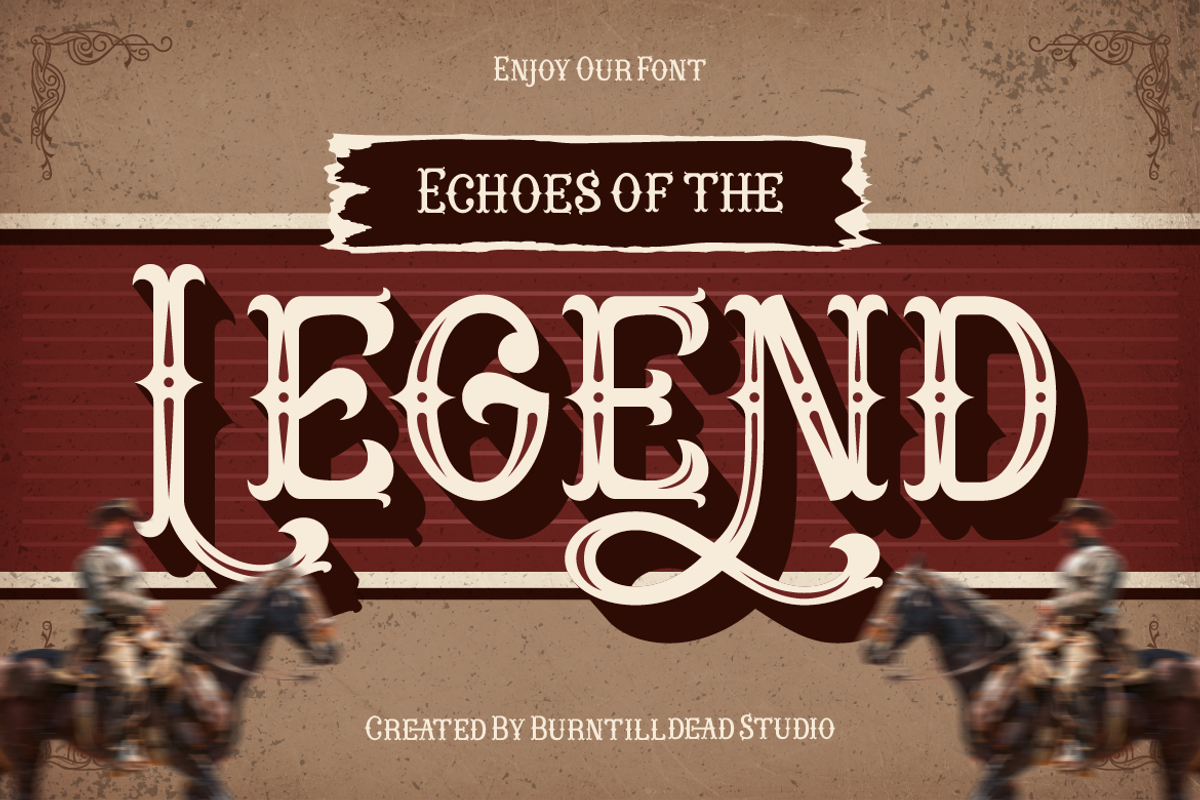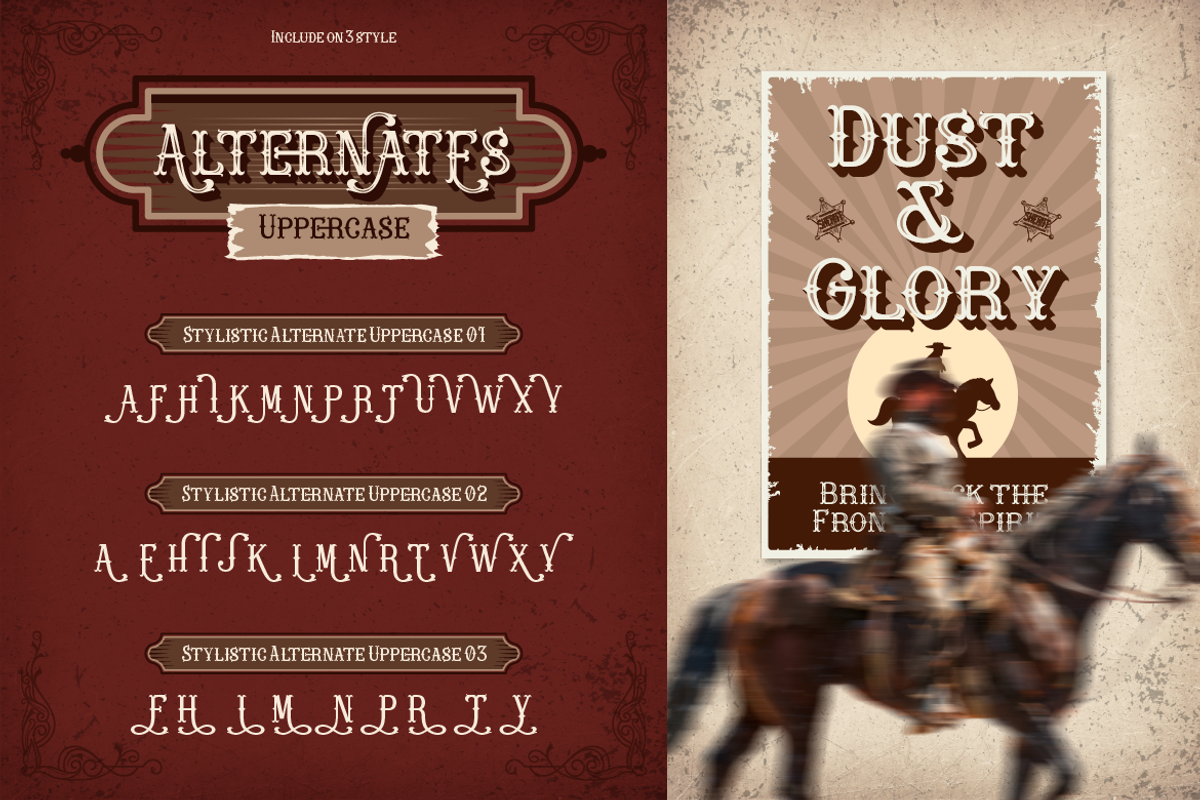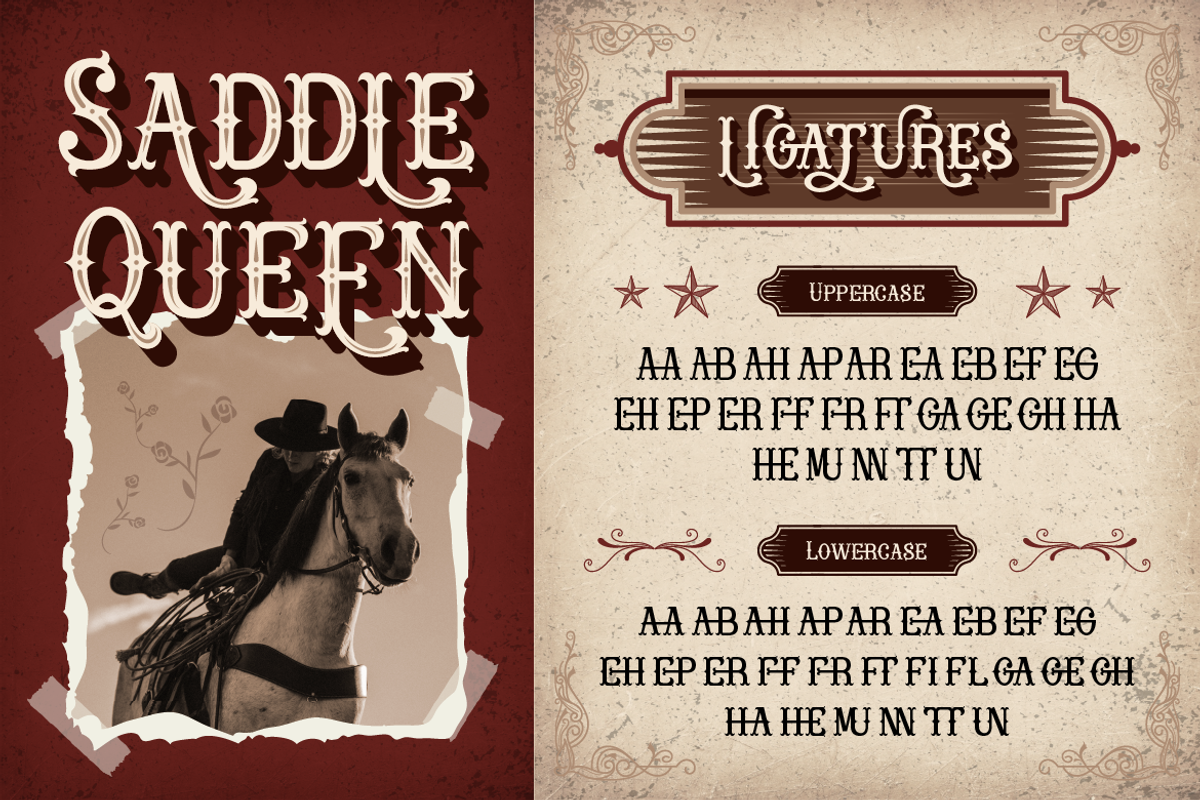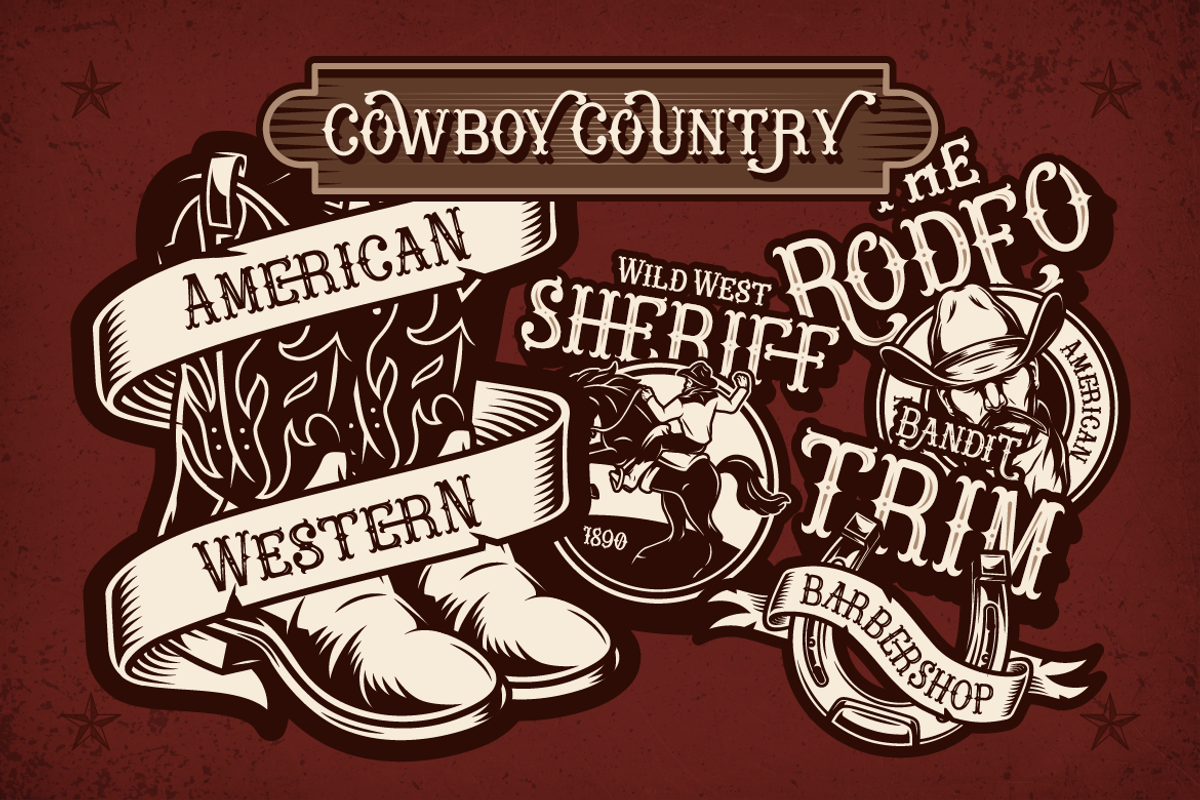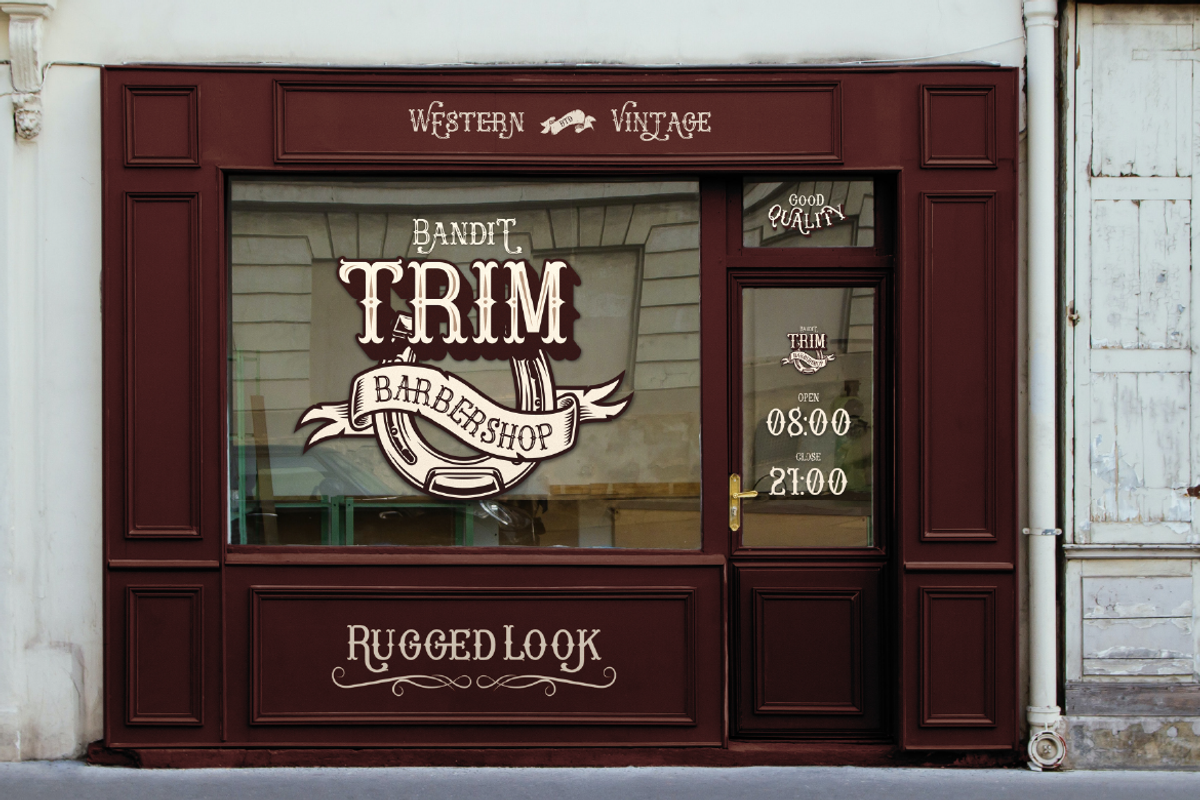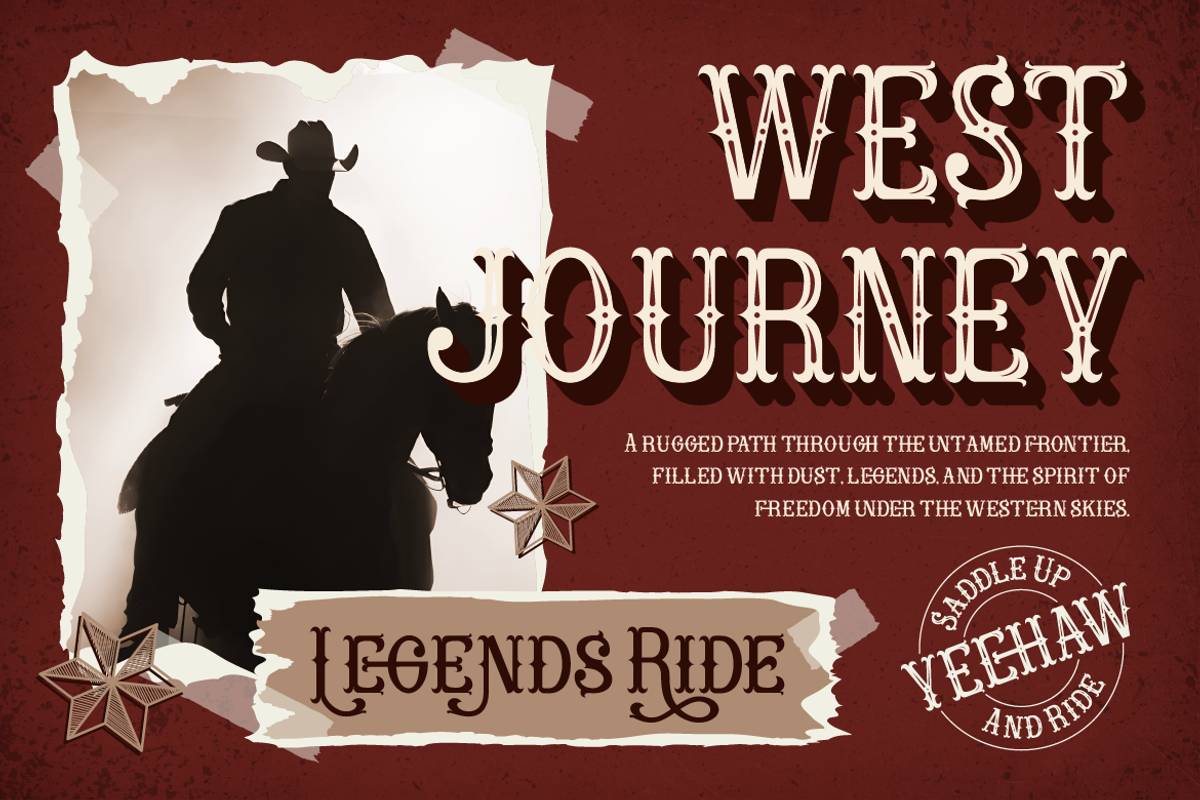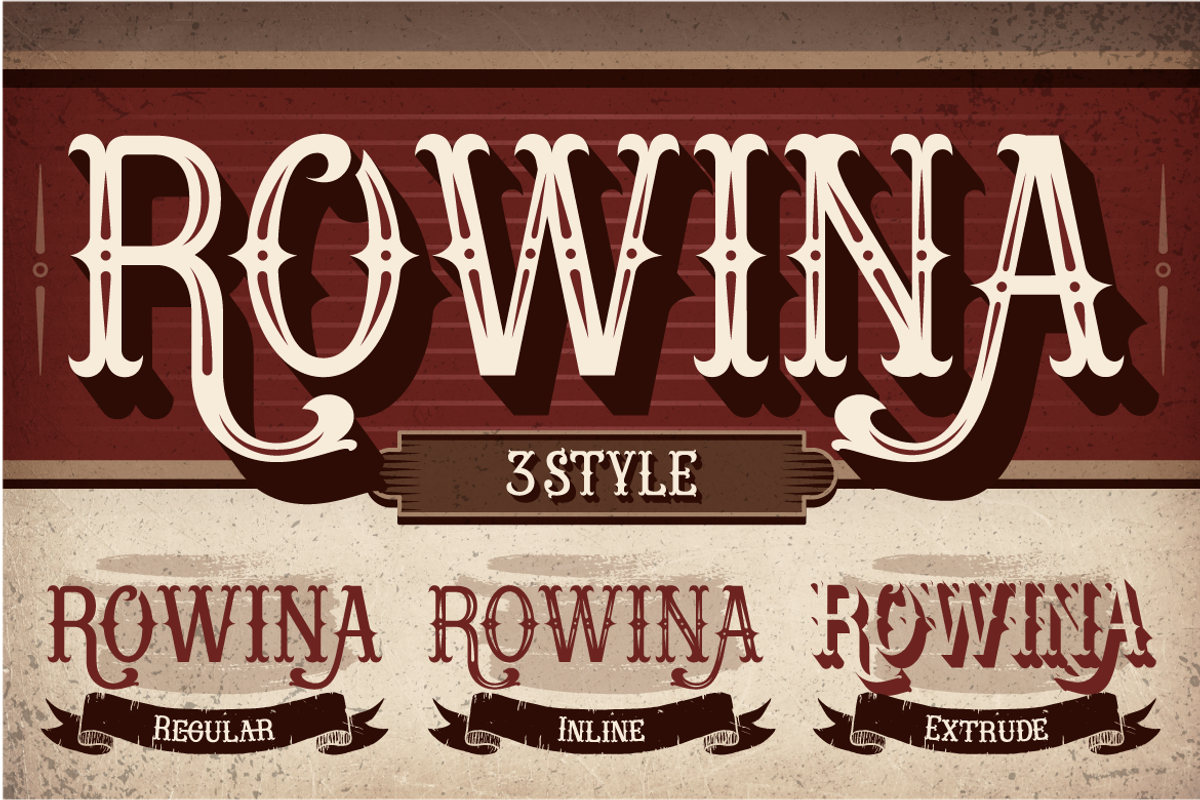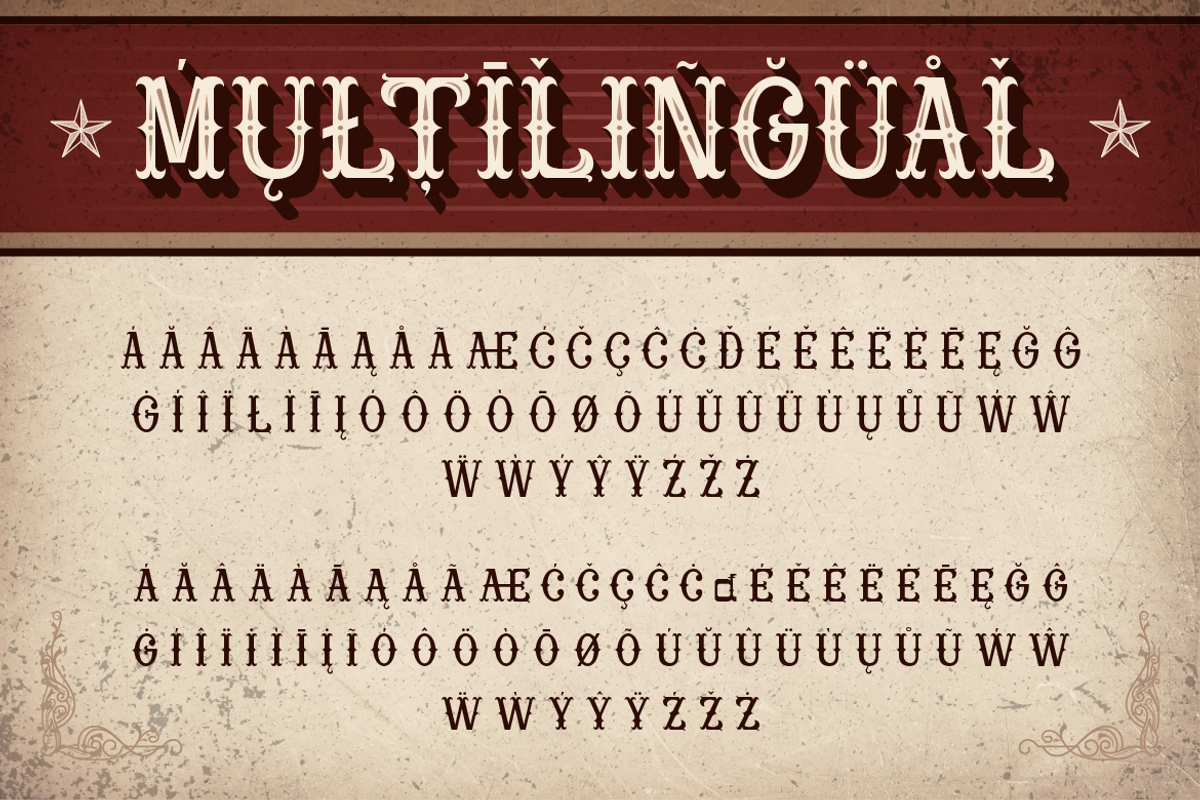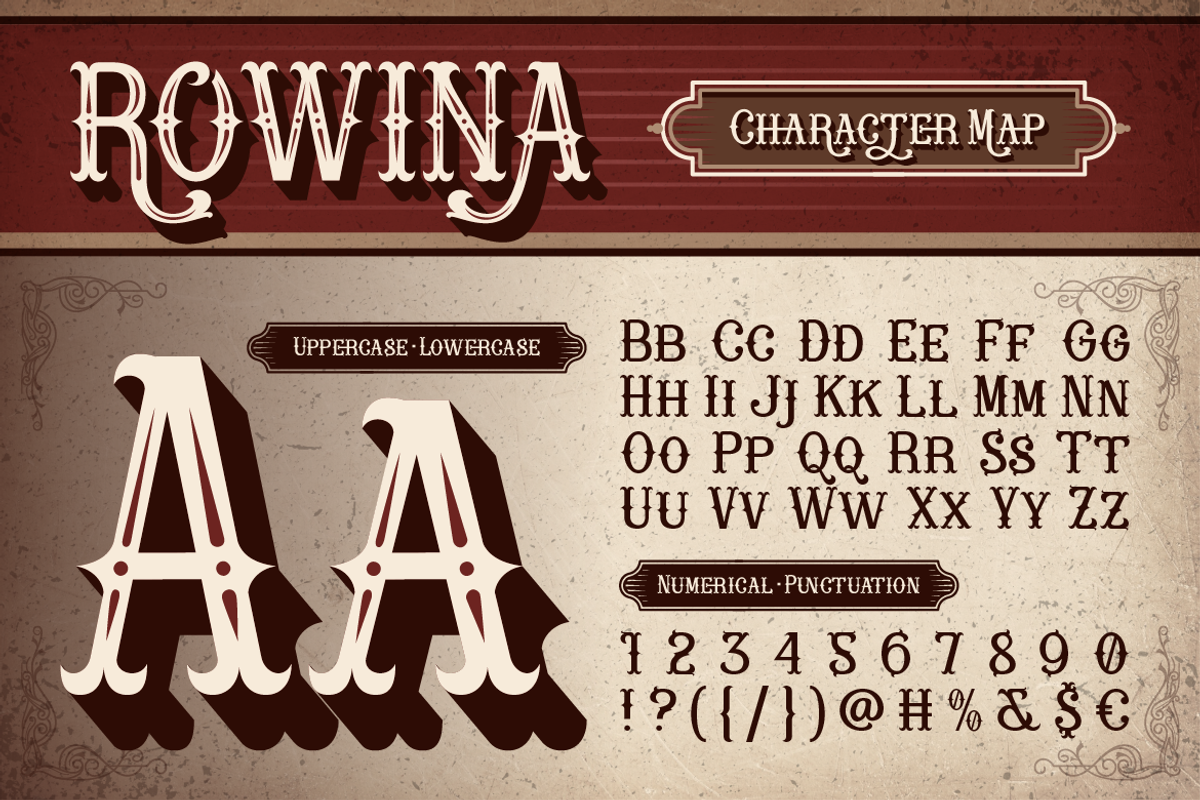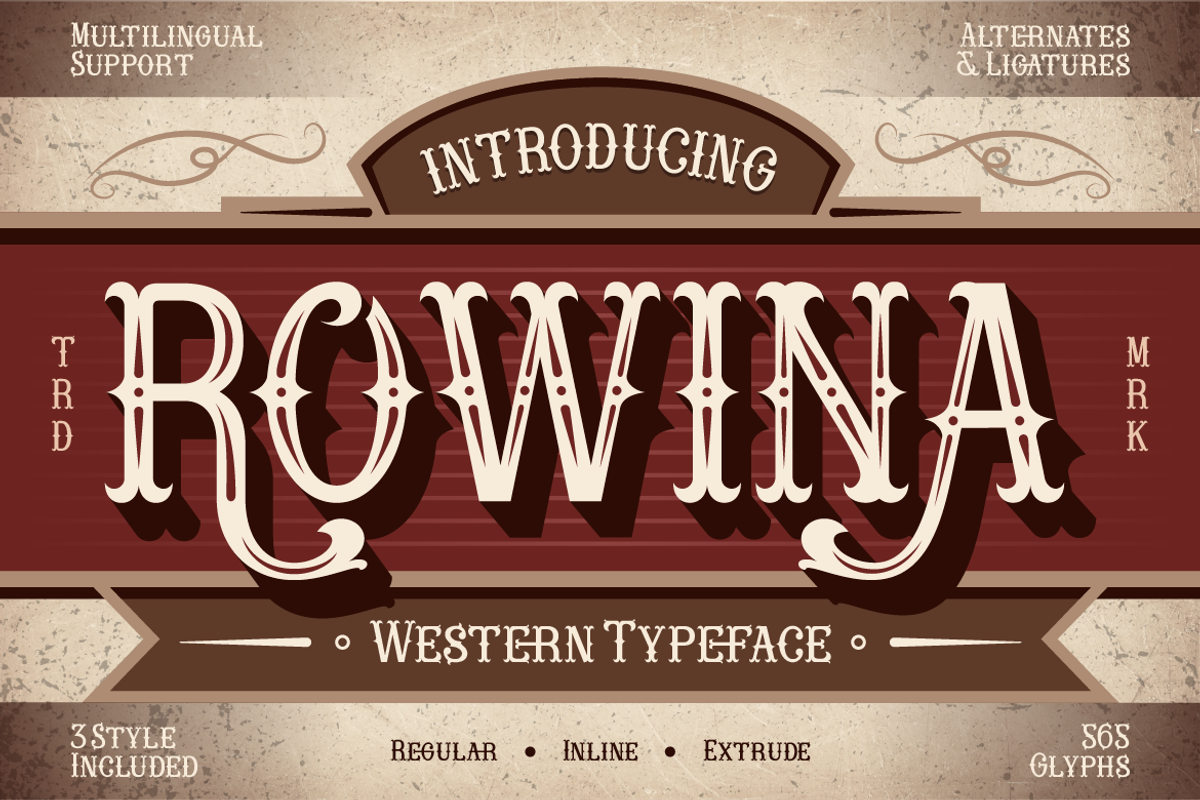
Rowina
Step back into the wild frontier with Rowina, a bold Western typeface that brings the spirit of the old saloon days to life. Inspired by vintage posters, cowboy boots, and whiskey-stained wooden signs, Rowina captures the rugged charm and timeless grit of the Wild West. Whether you’re designing a whiskey label, rodeo poster, or rustic café branding, Rowina adds that classic cowboy soul your design’s been missing. With 3 styles — Regular, Inline, and Extrude — plus alternates and ligatures, you can create layered, authentic Western looks that feel straight out of the prairie. Saddle up and let Rowina ride your next creative adventure, because every design deserves a little dust, whiskey, and freedom.
A - Z set (Uppercase & Lowercase)
Number
Rowina Character Map